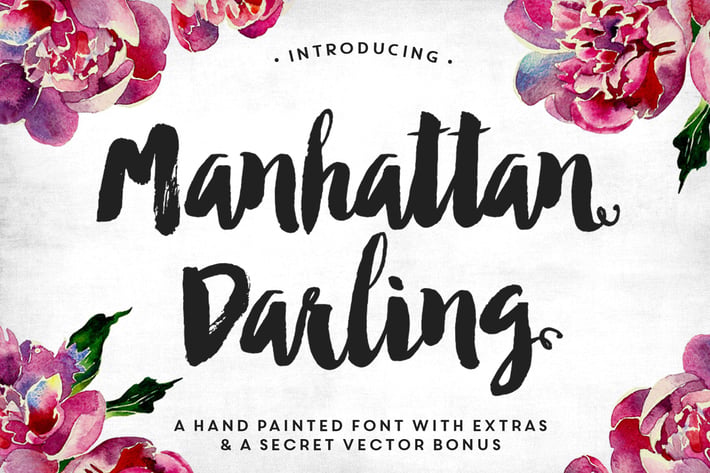
Manhattan Darling Typeface
Introducing Manhattan Darling Typeface! This lovingly hand-brushed typeface was designed as a dual-purpose font, with gritty, imperfect, hand-painted characters and an irregular baseline. Use the uppercase portion (Manhattan) to create a bold, organic hand-painted typography, or use the lowercase portion (Darling) for beautiful branding, logo designs, invitations, wedding elements, etc.